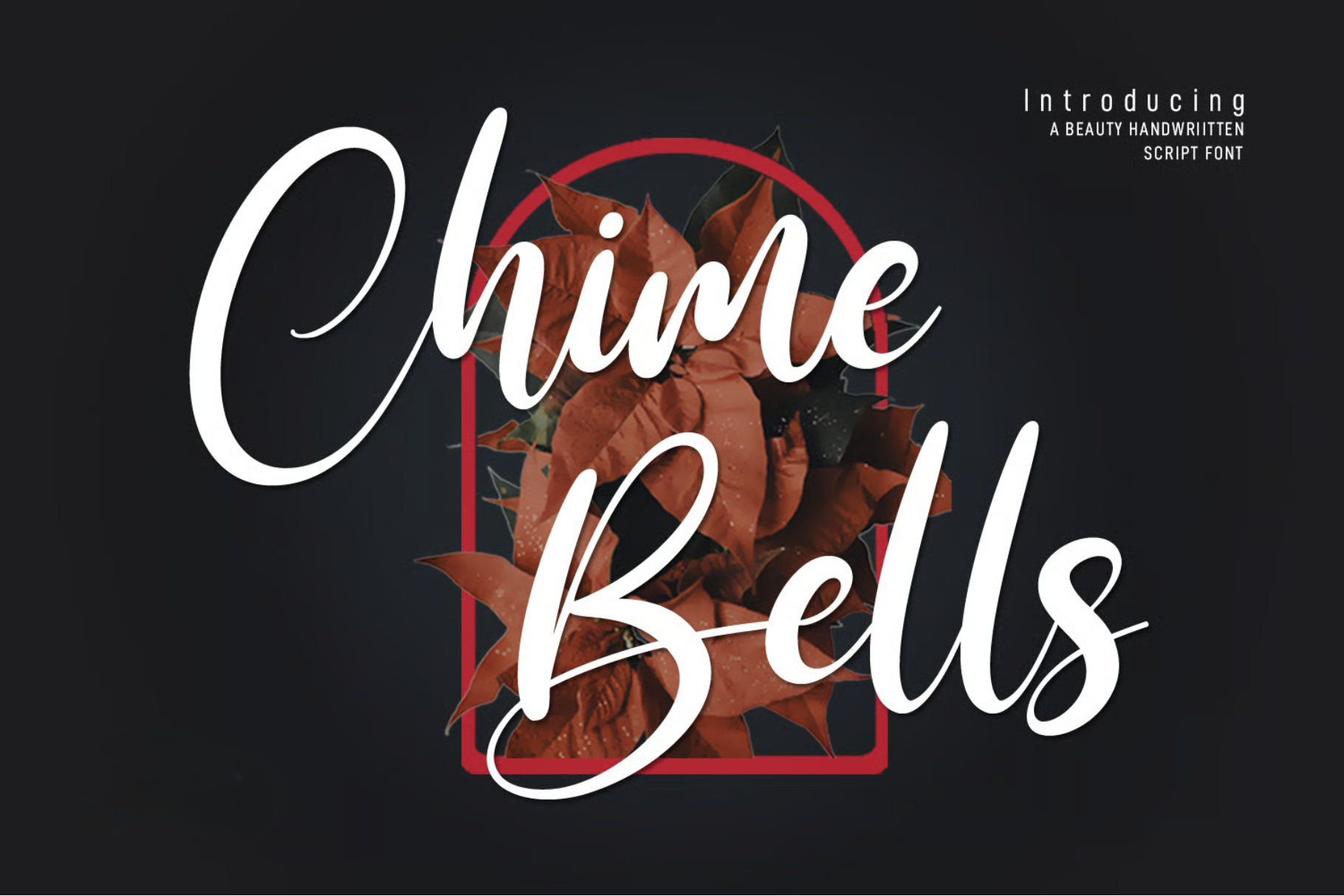
Chime Bells Beauty Script Font
Chime Bells is a beauty feminine handwritten script font. With high contrast stroke, fun character with a bit of ligatures and alternates. To give you an extra creative work. Chime Bells font support multilingual more than 100+ language. This font is good for logo design, Social media, Movie Titles, Books Titles, a short text even a long text letter and good for your secondary text font with sans or serif. Make a stunning work with Chime Bells font.